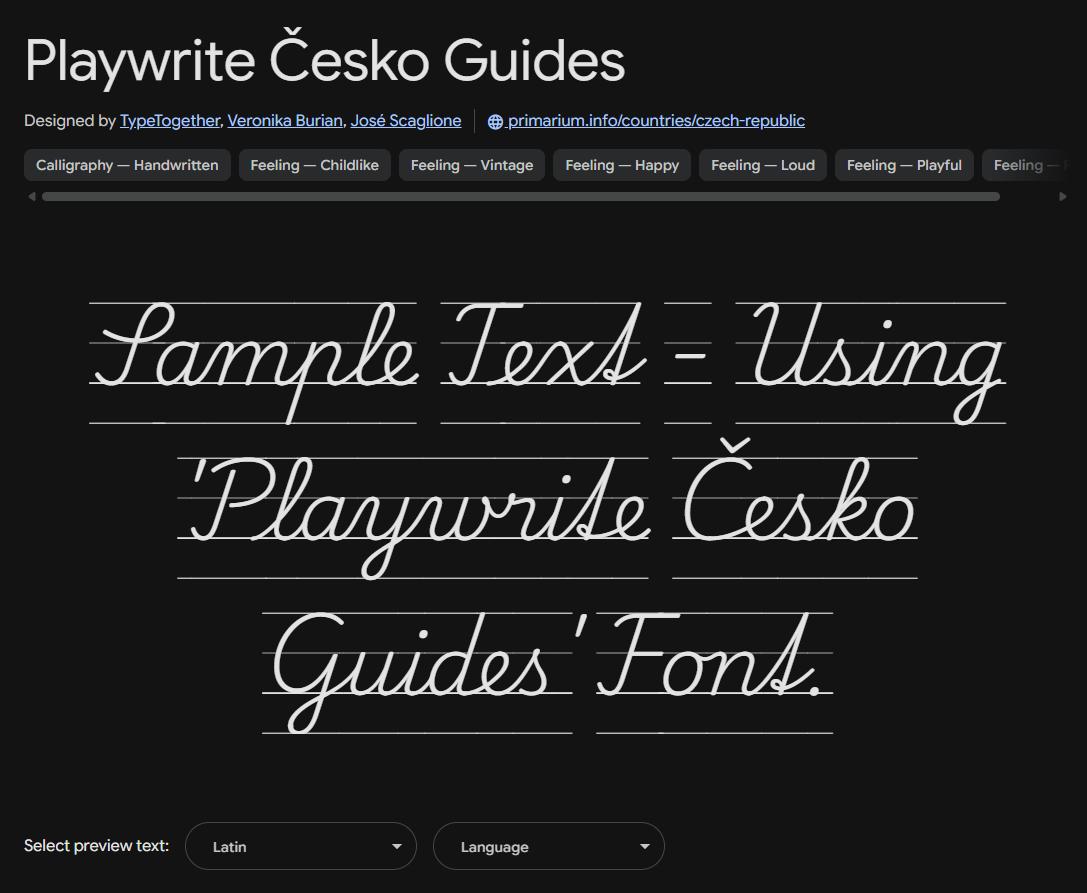
Playwrite Česko Guides, a specialized single-style typeface engineered by Veronika Burian and José Scaglione of TypeTogether, represents a pinnacle of pedagogical typography by integrating structural ruling lines directly into its vertical metrics. This digital handwriting tool leverages precise x-height alignments and calibrated ascender-to-descender ratios to mirror the Czech Republic's national educational standards for cursive acquisition. By utilizing sophisticated OpenType features to maintain stroke continuity and rhythmic spacing, the font functions as a semantic scaffolding system, transforming static glyphs into dynamic instructional guides that facilitate the transition from motor-skill development to fluent literacy within modern instructional interfaces.
The Playwrite Česko Guides font family serves as a specialized pedagogical instrument that bridges the gap between historical Czech cursive models and contemporary variable font technology. Its characteristic "calligraphy" style is defined by a "rugged" yet fluid skeletal structure, where "childlike" simplicity meets "vintage" penmanship standards to facilitate primary education literacy. This typeface exudes a "happy" and "playful" rhythmic bounce through its carefully modulated strokes and generous x-height, while the integrated horizontal guides provide a "loud" visual anchor that assists in the spatial positioning of glyphs. By synthesizing these "loud" instructional elements with a tactile, "handwritten" aesthetic, Playwrite Česko Guides transforms traditional didactic typography into a vibrant, semantic experience, ensuring that every descender and ligature maintains a nostalgic charm without sacrificing the technical precision required for modern digital rendering.
Due to its specialized architecture as a pedagogical tool for primary education in the Czech Republic, the Playwrite Česko Guides typeface is fundamentally unsuitable for high-stakes corporate branding or complex UI/UX environments where information density and rapid legibility are paramount. The inclusion of persistent horizontal baseline and x-height guides-integral to the font's role in teaching cursive letterforms-introduces significant visual noise that disrupts the gestalt principles of professional layout design, making it inappropriate for long-form editorial content or legal documentation. From a technical standpoint, the fixed-weight skeletal structure and the rhythmic constraints of its school-hand script lack the optical sizing and kerning versatility required for responsive digital interfaces, while the presence of didactic horizontal rules would be perceived as a structural artifact that compromises the aesthetic integrity of luxury branding or minimalist architectural signage.
This font maintains high legibility at smaller sizes due to its balanced proportions and clear letterform definitions optimized for physical media. High x-height ratios and open counters prevent ink gain from closing up characters when printing at standard resolutions of 300 to 600 DPI.
The font includes a comprehensive range of diacritics necessary for correct Czech orthography, including the caron, acute accent, and ring. Full support for the Latin Extended-A character set ensures that glyph composition for marks like the ř, š, and ž adheres to traditional European linguistic standards.